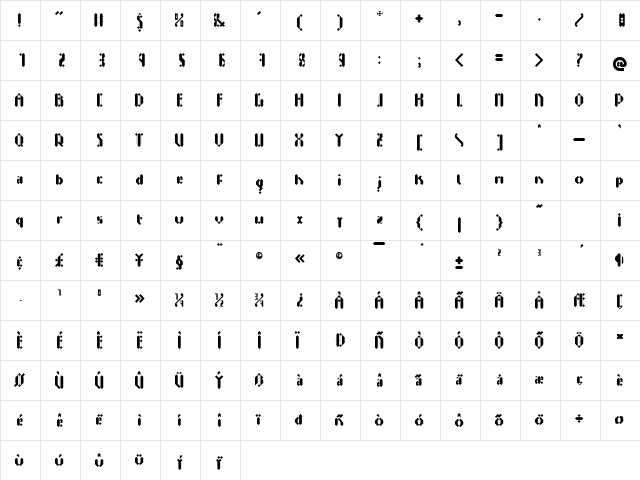
DAplakijtt Regular
Design Context for DAplakijtt Typeface
DAplakijtt is a composed and adaptable typeface that performs quietly and consistently across a wide range of design contexts.